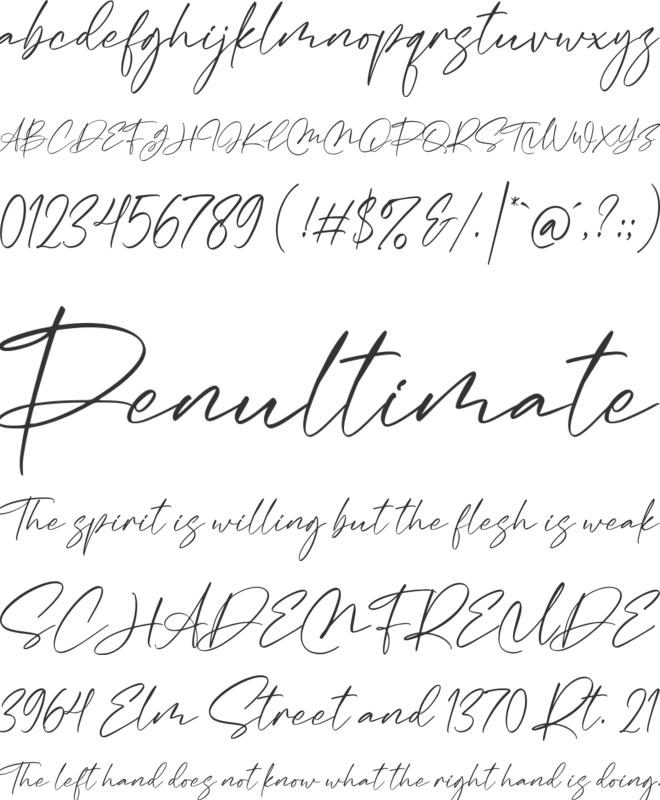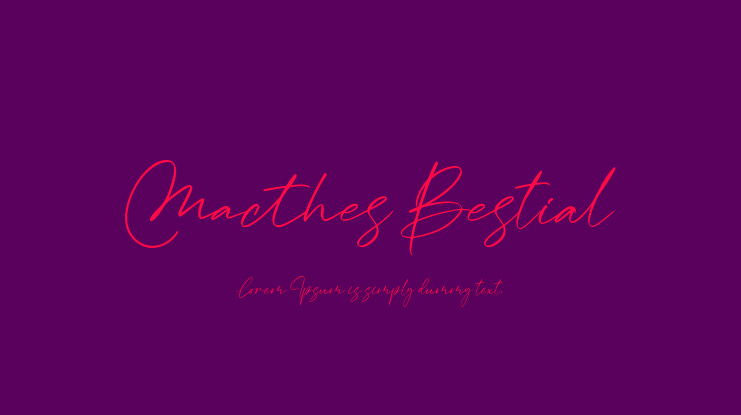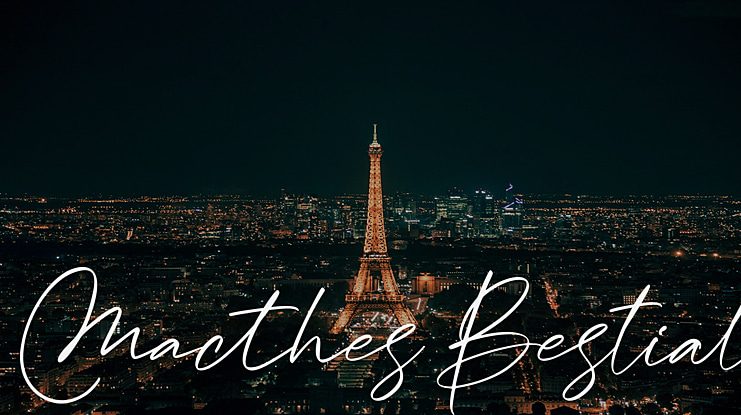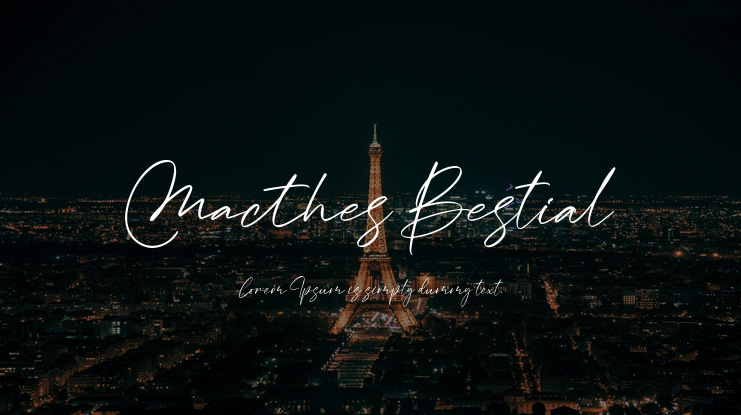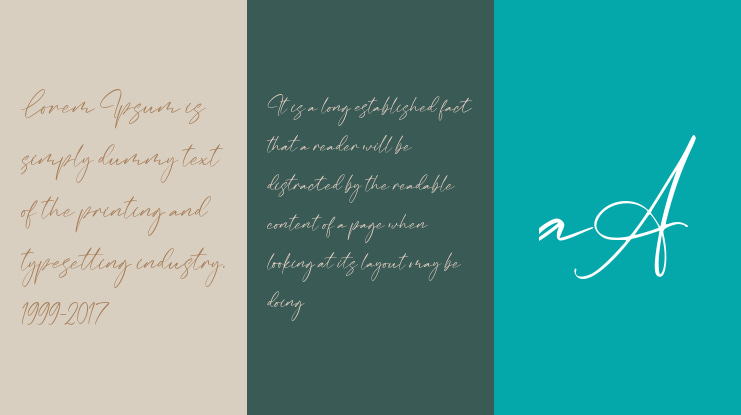
Macthes Bestial Font
Muhammad Farhan Sholeh Ramadhika
Macthes Bestial is a beautiful and refined script font. It has a classy, elegant and modern look that can be used for a variety of designs!